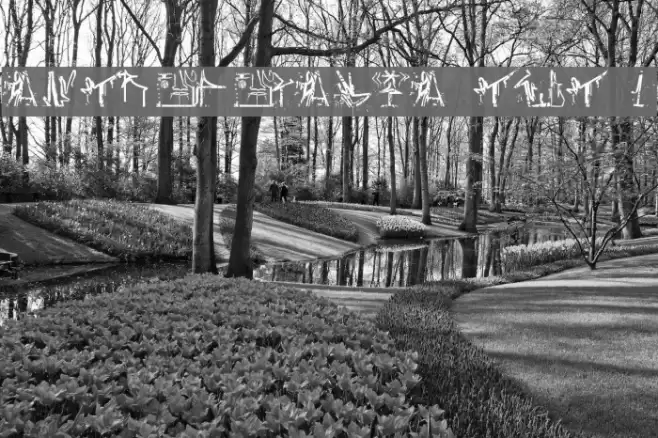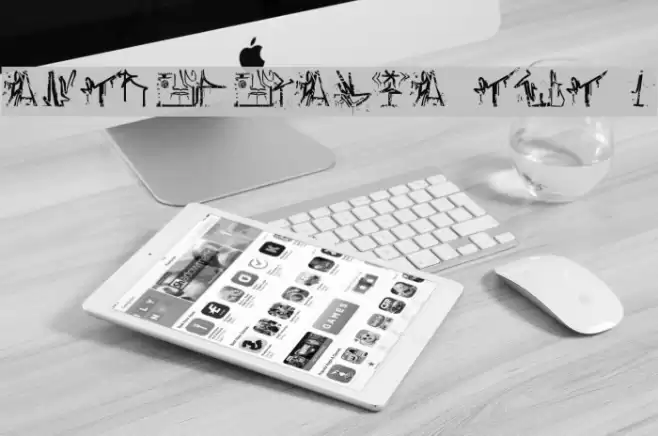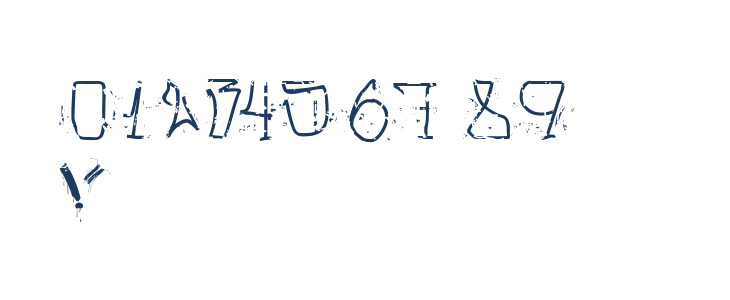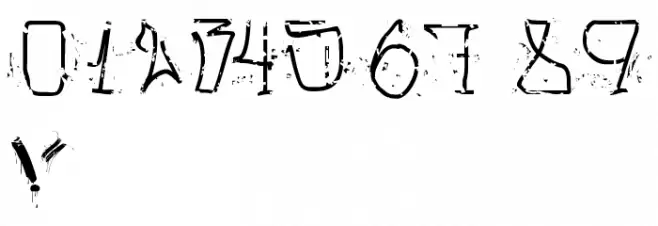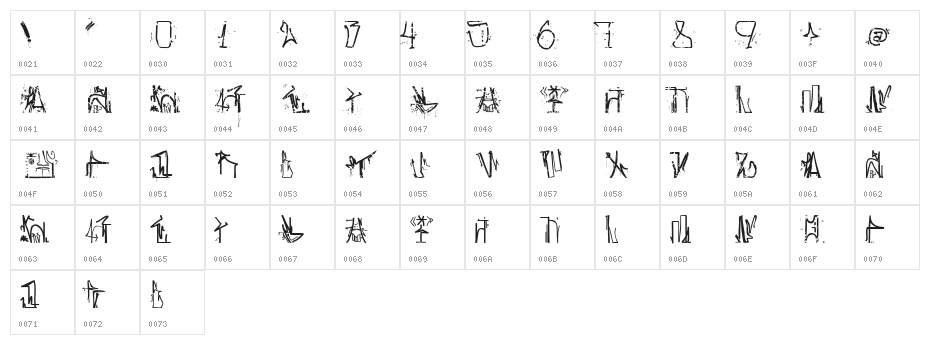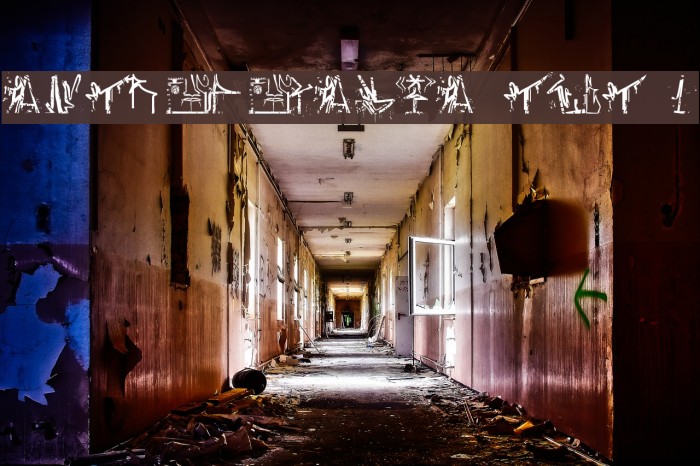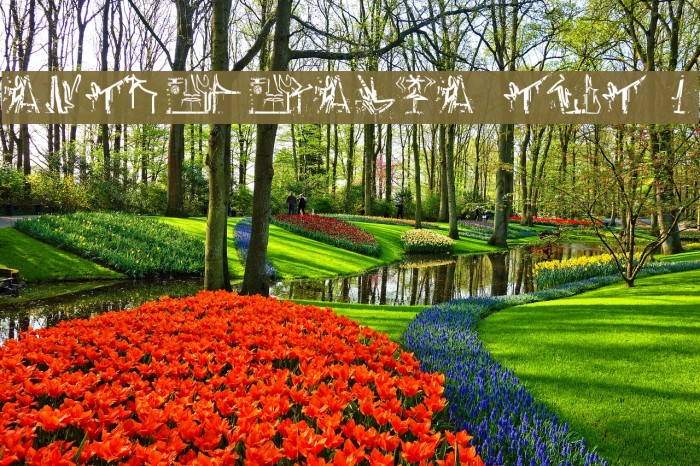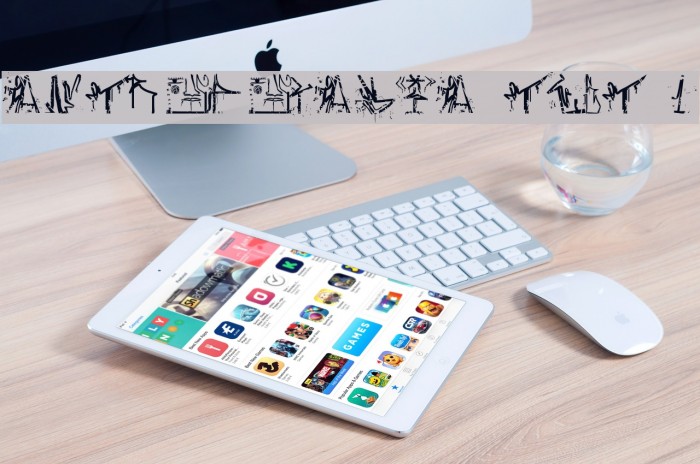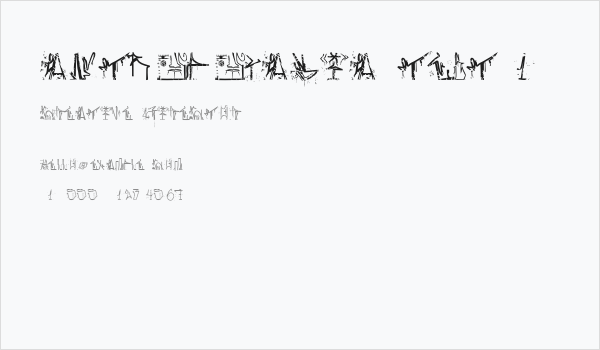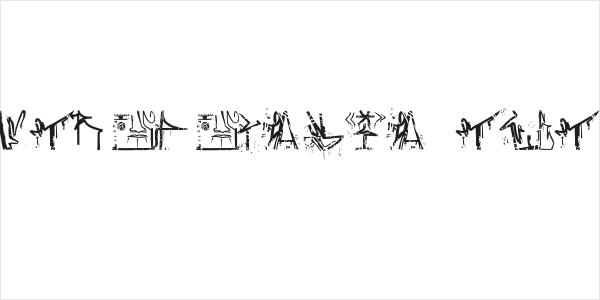
ANTROPOFAGIA TEST 1 Font
ANTROPOFAGIA TEST 1 Description
This font exhibits a highly abstract and artistic style, characterized by its irregular and fragmented letterforms. Each character appears as a unique piece of art, with strokes that vary in thickness and direction, creating a chaotic yet intriguing visual effect. The font's design is reminiscent of graffiti or street art, with a raw and expressive quality that defies traditional typographic norms. The characters are heavily stylized, with sharp angles and unexpected curves, making them more suitable for decorative purposes rather than readability. This font is ideal for projects that aim to convey a sense of rebellion, creativity, or avant-garde aesthetics.
An abstract, graffiti-inspired font with irregular, artistic letterforms from Uncategorized fonts.
- Proposed Projects: Album covers, street art posters, avant-garde fashion branding, experimental design projects.
- Character Spacing: Wide
- Overall Style: Avant-garde
- Use Case: Logos, Posters, Artistic displays